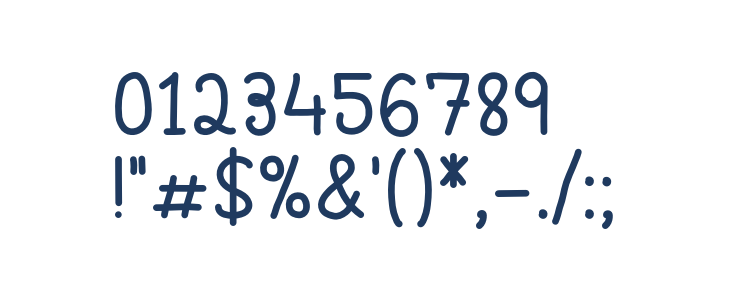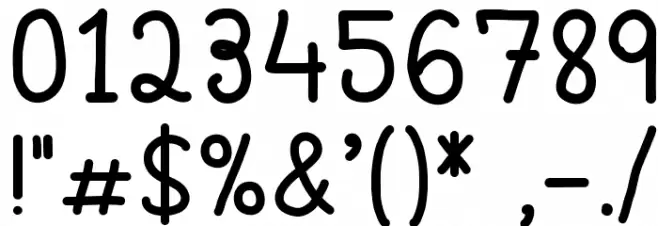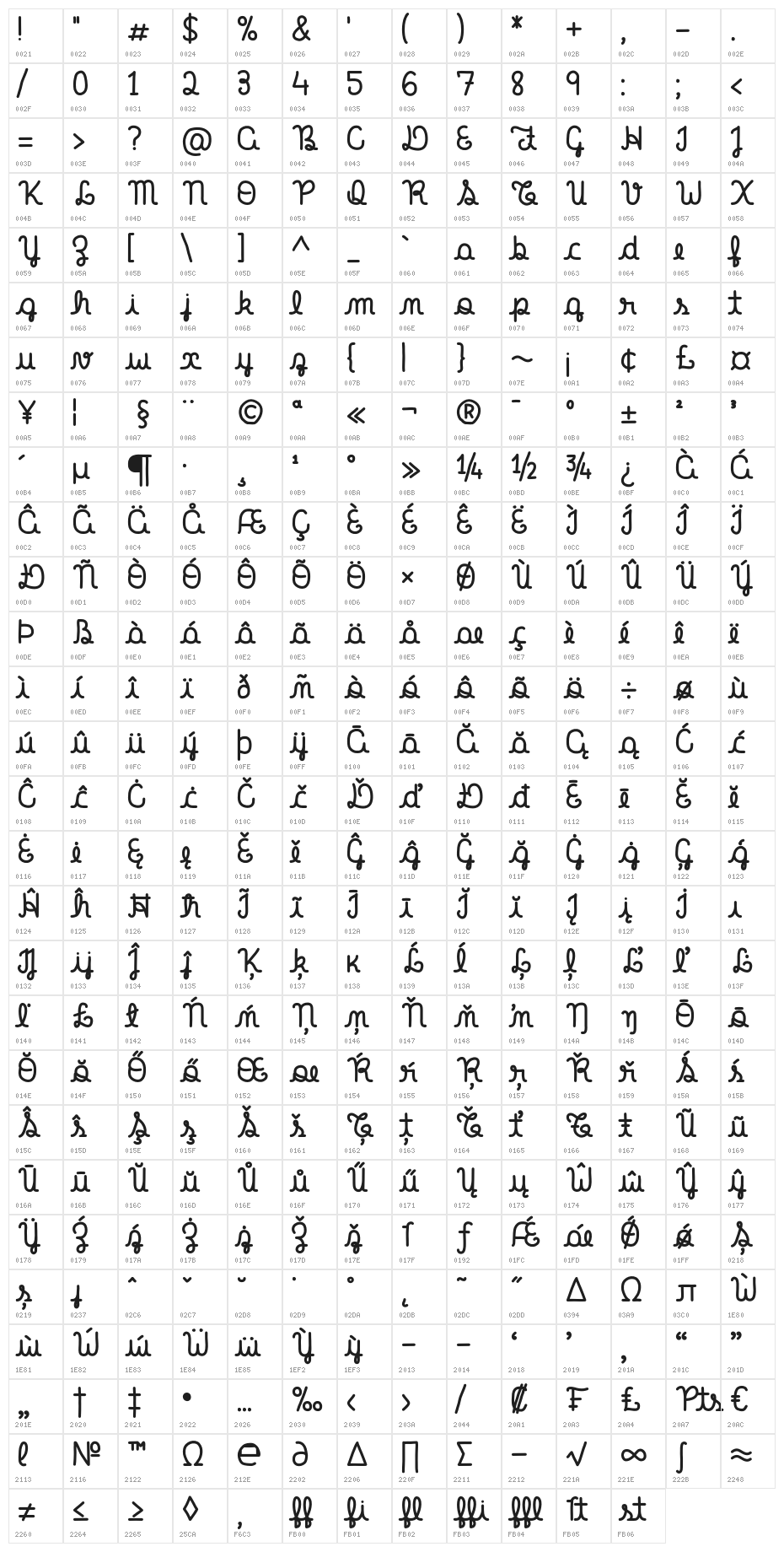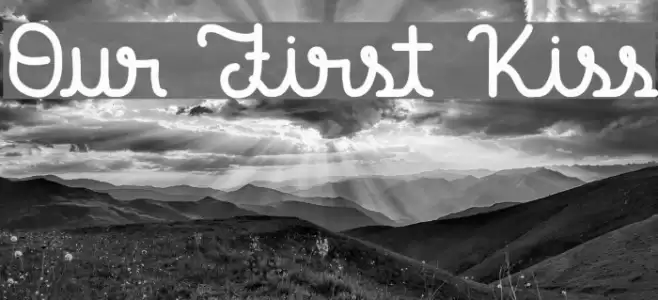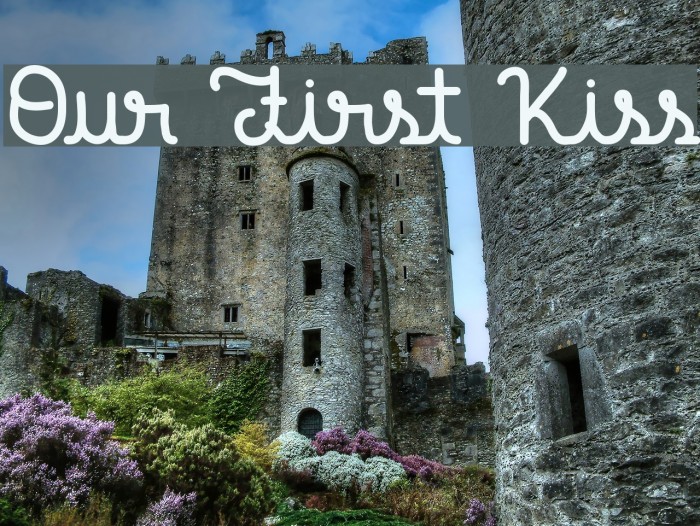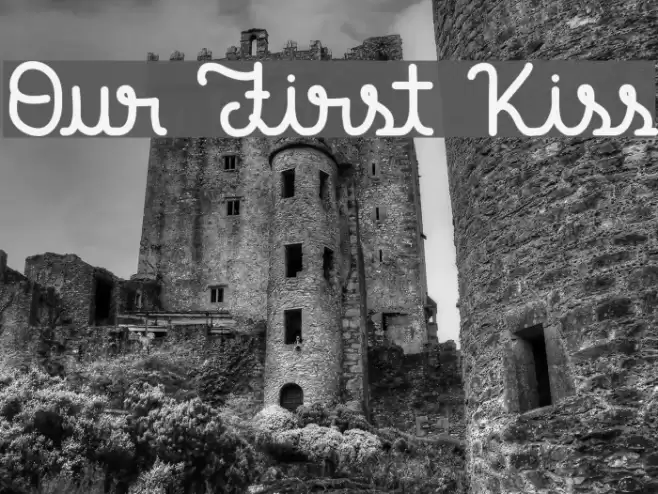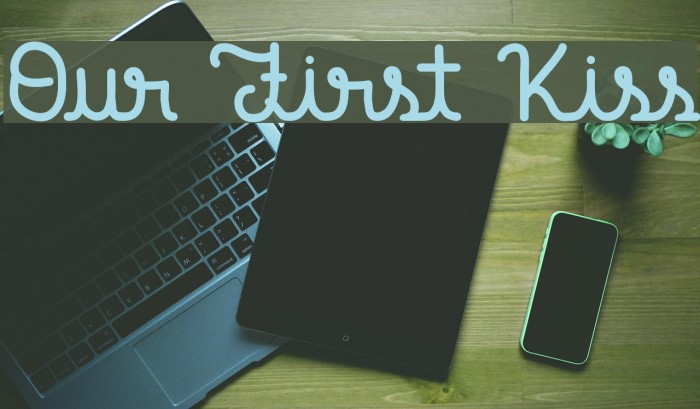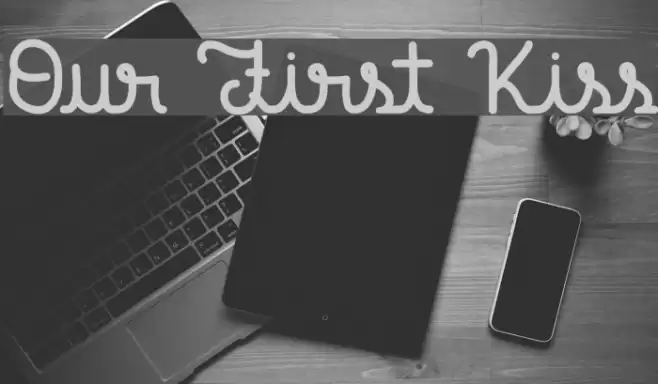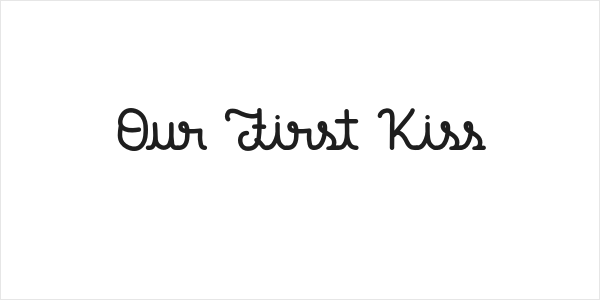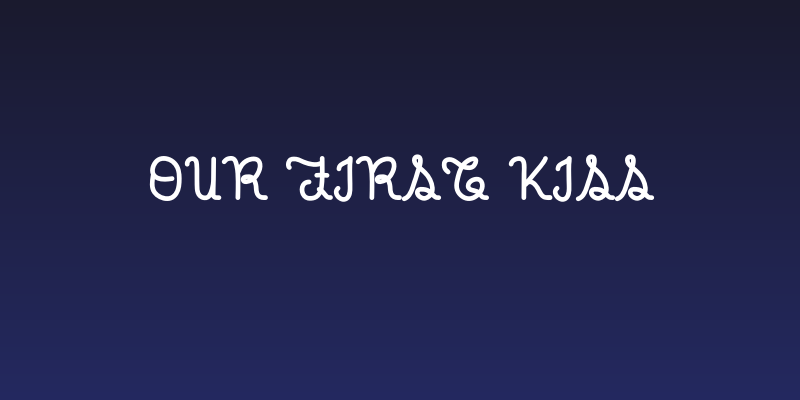
Our First Kiss Font
Our First Kiss Description
This font features a playful and whimsical design with a handwritten style. The characters are rounded and connected, giving it a smooth and flowing appearance. The uppercase letters maintain a consistent height, while the lowercase letters have a slight variation in size, adding to the casual and friendly feel. The numerals and special characters are designed to match the overall style, ensuring a cohesive look across all text. This font's unique charm makes it suitable for projects that require a personal touch.